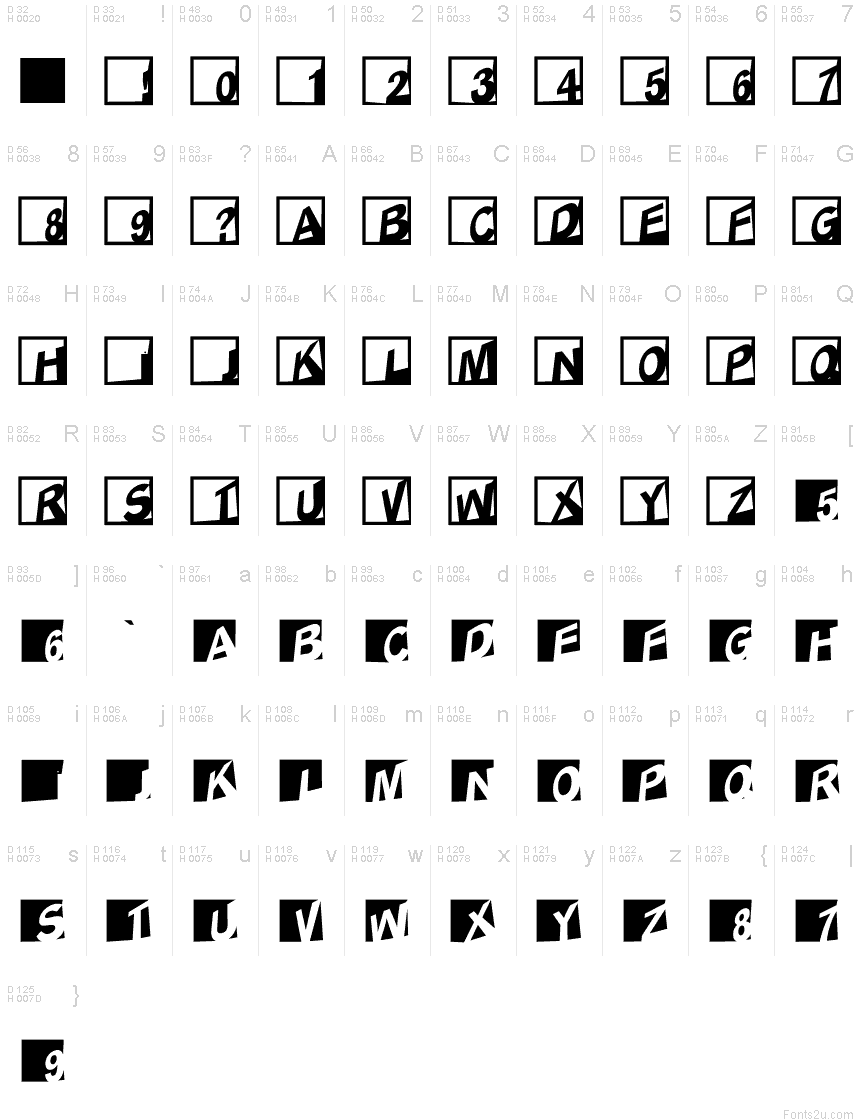
ABCLogosXYZCrazy-Oblique
ABC Logos XYZ Crazy Oblique font by M. Klein is a free decorative comic display typeface that looks like each letter has been dropped into its own tilted frame. The chunky, hand-drawn forms lean forward with a scribbly energy, while the black box shapes lock them into a tight, rhythmic strip. It feels like a row of stickered tiles-wonky, bold, and impossible to ignore.
Using ABC Logos XYZ Crazy Oblique in the ABC Logos XYZ Crazy family, your text instantly feels like a logo or title treatment, even at a glance. This free font shines on kids’ branding, comic covers, party flyers, YouTube thumbnails, game logos, and playful packaging. Keep it large so the skewed boxes stay crisp, and pair it with a simple sans serif underneath to handle any supporting text.